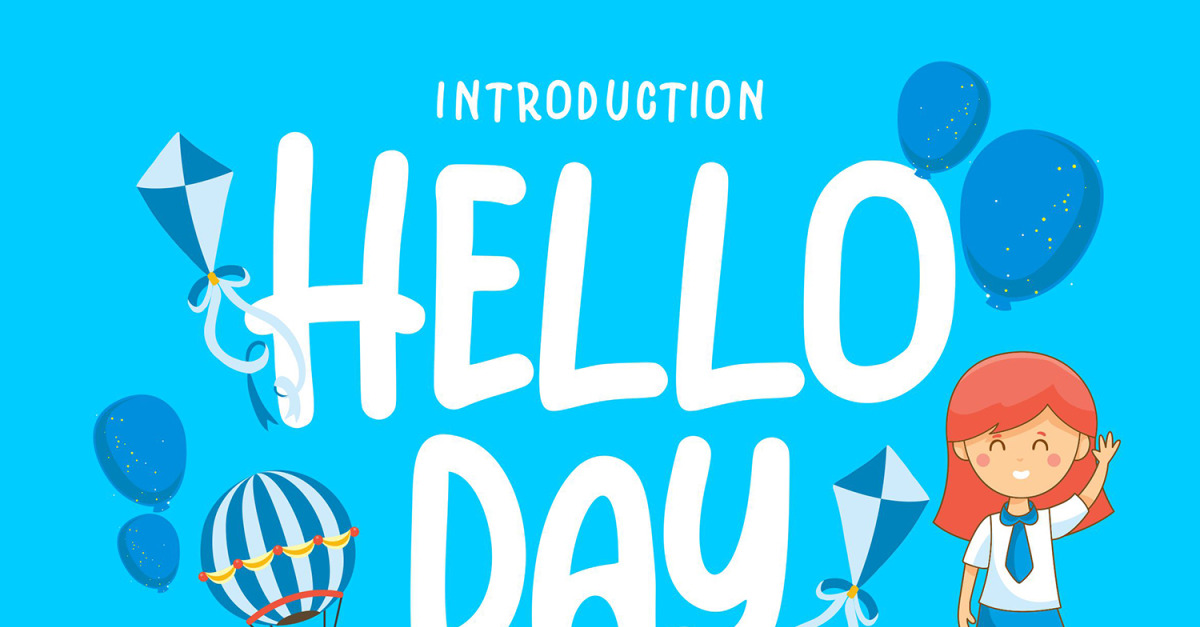
Hello Day | Kids Fun Font
**Hello Day | Kids Fun Font** with a calligraphy style, So beautiful on invitation like greeting cards, branding materials, business cards, quotes, posters, and more!